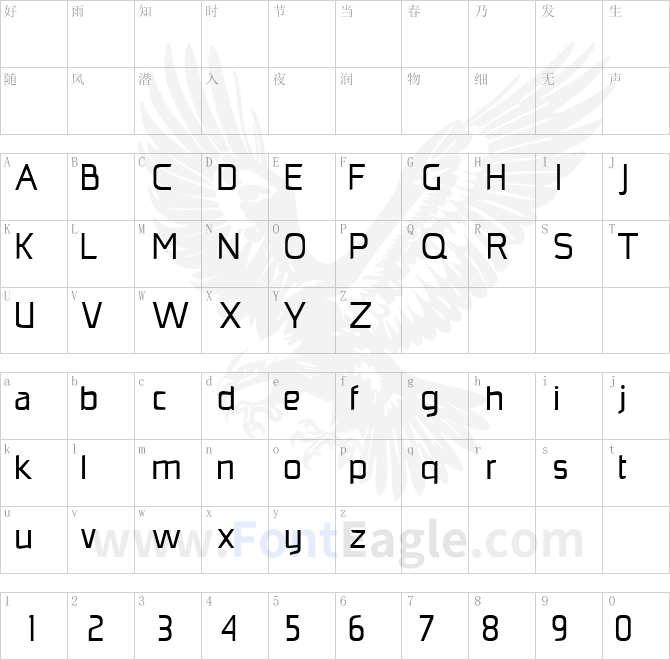
Monopoly-copy-1- is a great font, widely used in graphic design, single-page menu design, poster design and other fields, and is deeply loved by designers.Monopoly-copy-1- download.